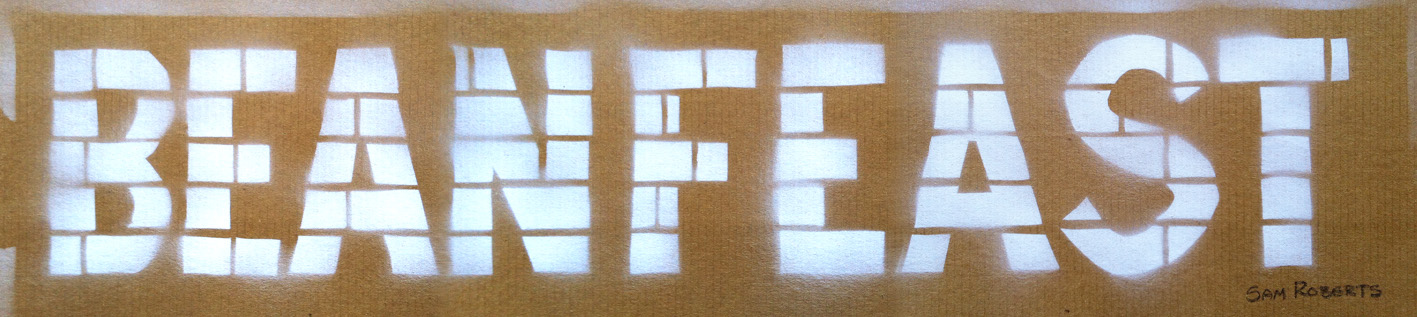
‘Beanfeast’ by Sam Roberts
Roberts’ work photographing and researching the fading remains of advertising painted on walls (a.k.a. ghostsigns) often leads to interesting questions, such as ‘what is a beanfeast?’. The full text of this Highgate sign is ‘Catering for beanfeasts, parties & clubs’. Roberts goes on to explain that “However, beans in this case aren’t the baked variety, but the accounting type. A beanfeast is a party thrown by an employer if the end-of-year ‘bean counting’ has revealed a positive set of accounts. The modern equivalent would be the Christmas party and the deployment of ‘beans’ to pay for it.”
“When challenged to think of an interesting word arising from my ghostsigns research in London, this, and the painted sign, was the first that came to mind. It resonates at a number of levels, representing London as a centre of finance, but also as a centre of creativity. It provides a glimpse into London’s long history, both in terms of the evolution of language and the once widespread practice of advertising with paint on walls. As a native Londoner I’d also say it says something about our ability to throw a great party.”
Roberts came along to the studio with his photo and cut out an exact replica of the ‘Beanfeast’ ghostsign to stencil for Type Tasting with the London Design Festival
‘Beanfeast’ by Sam Roberts is one of the words that will be displayed at Type Tasting with the London Design Festival 2013 at the V&A.